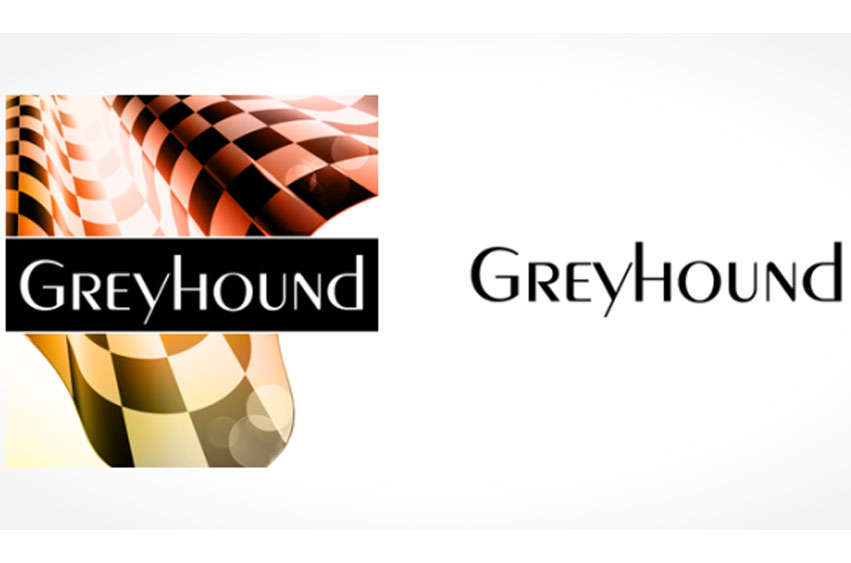
Greyhound Font
Greyhound Font is a decorative typeface published by SoftMaker.
It fits in headlines, logos, posters, flyers, invitations, name cards, branding materials, print media, editorial layouts, and many more.